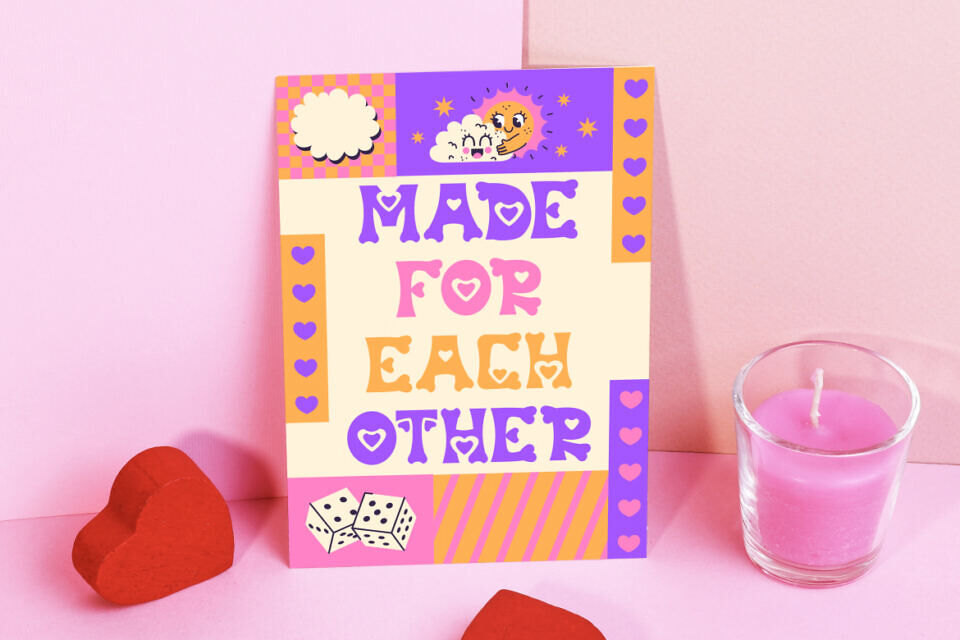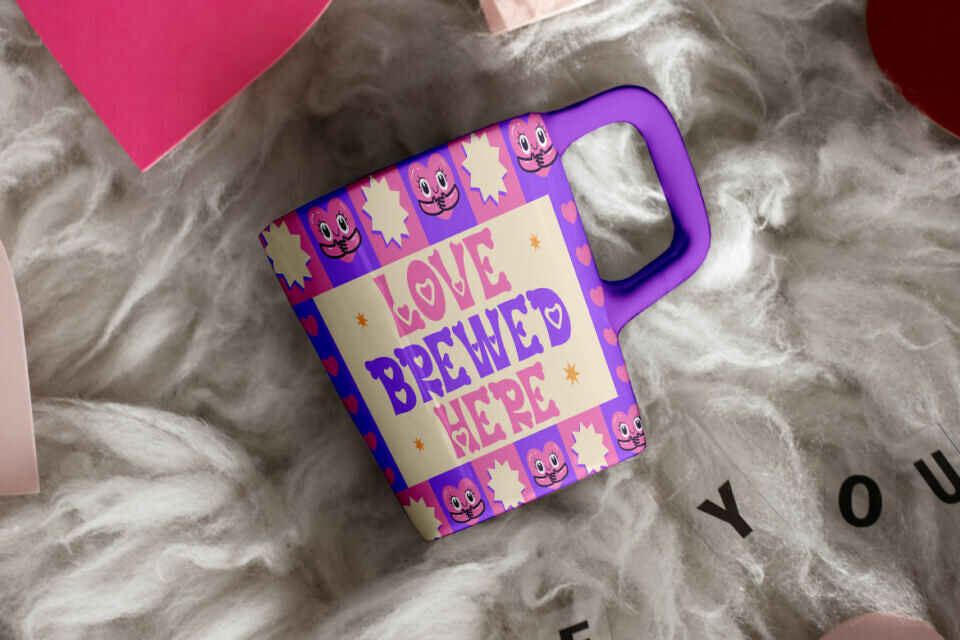
Heart Fade Font
Heart Fade Font is a charming typeface designed to capture affection, warmth, and whimsy. Each letter features playful curves and heart-inspired cutouts, giving the font a unique personality. The shapes are bold yet slightly quirky, with medium weight and rounded details that keep the characters approachable and friendly.
Its style feels cheerful and affectionate, making it perfect for Valentine’s projects, wedding stationery, or any design that wants to emphasize love and joy. The balance between decorative elements and readability makes Heart Fade Font versatile for both headlines and smaller creative texts.